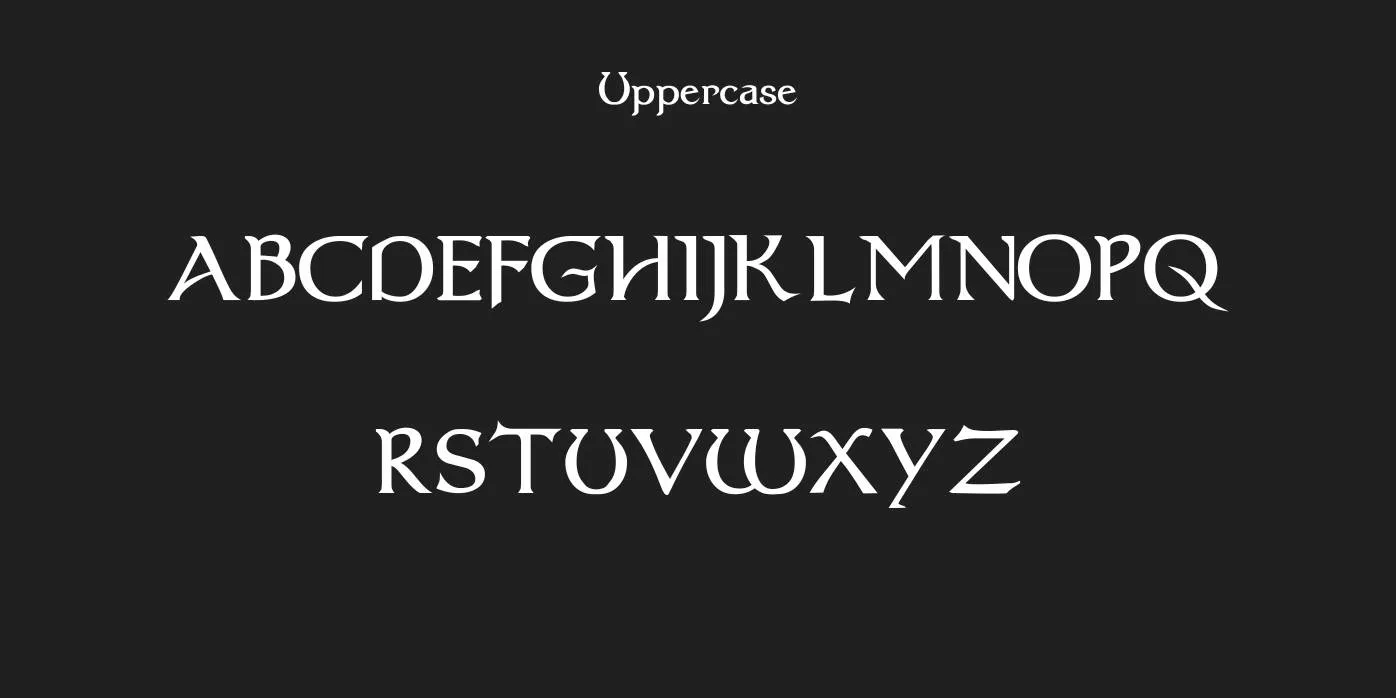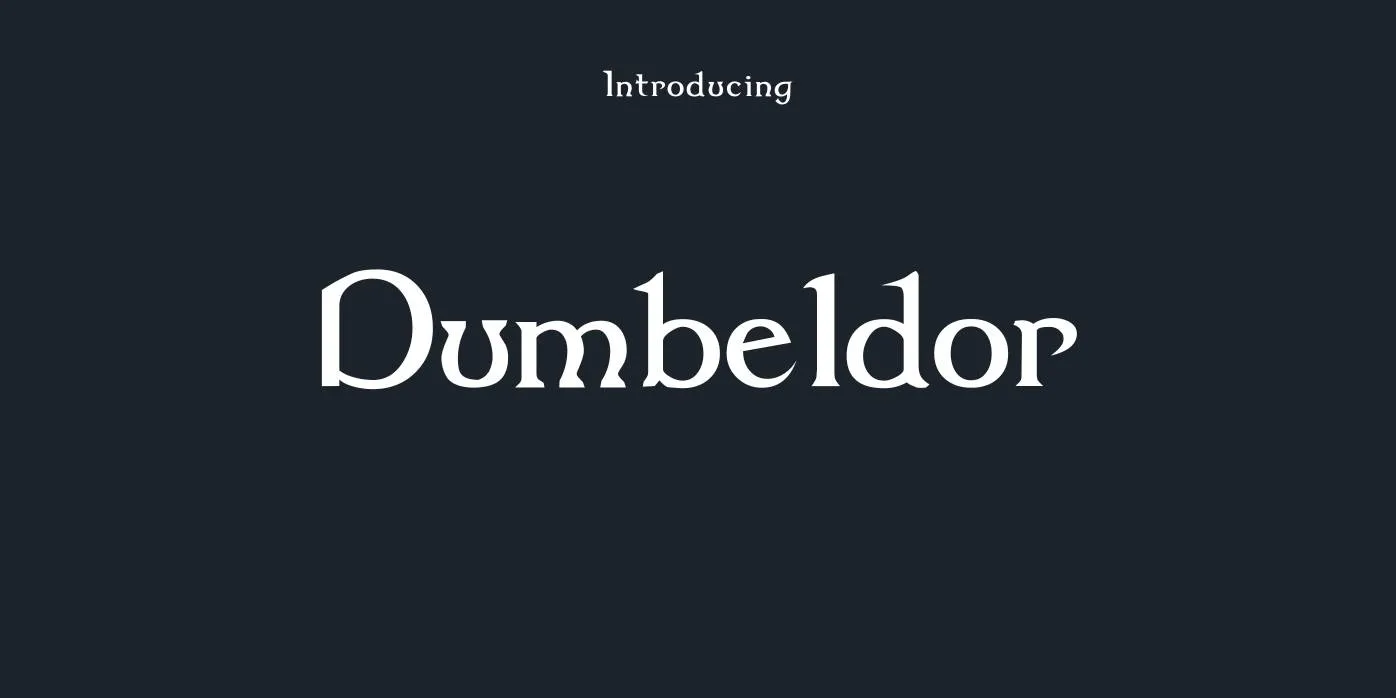
≠Dumbeldor Font
Here we discuss the detailed information of Dumbeldor Font. It was designed by GemFonts and is a gothic-type font. It was created on 01-04-2001. It has 219 characters, 211 glyphs, and 2048 units per Em. The Weight of the font is Medium (normal) and the width of the font is Medium (normal).
This font follows directions from left to right glyphs including neutrals. The pattern nature of this font is regular and the posture of the font is Upright. Its pitch is not monospaced. It can be paired with other fonts like greek font to give a very attractive look to your project.